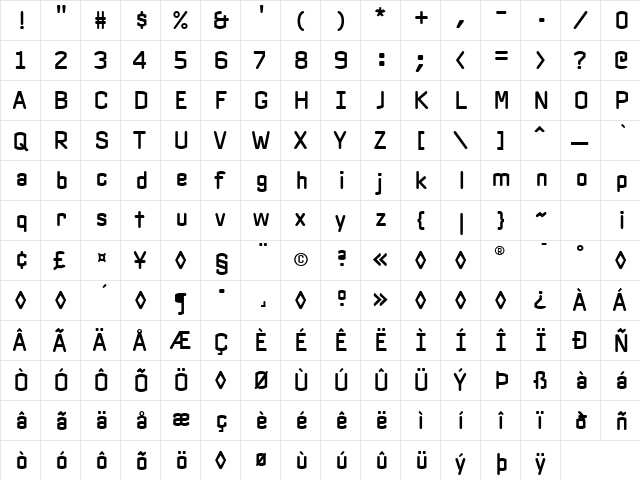
Clicktest Normal
Design Context for Clicktest Typeface
Clicktest is a composed and adaptable typeface that performs quietly and consistently across a wide range of design contexts.